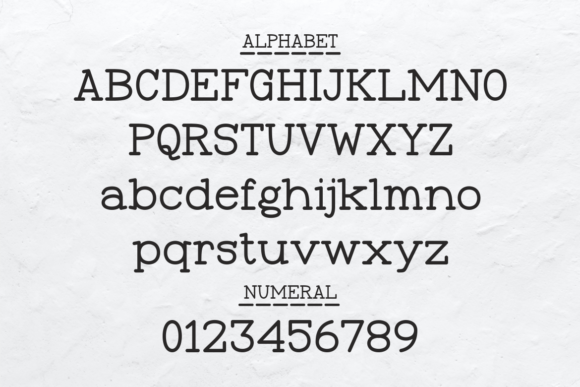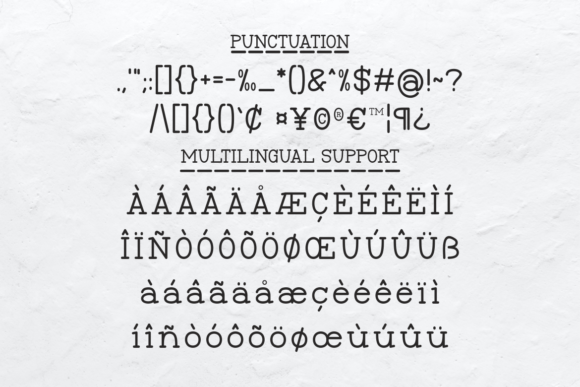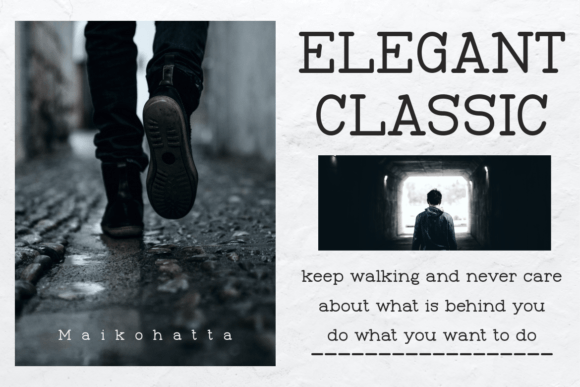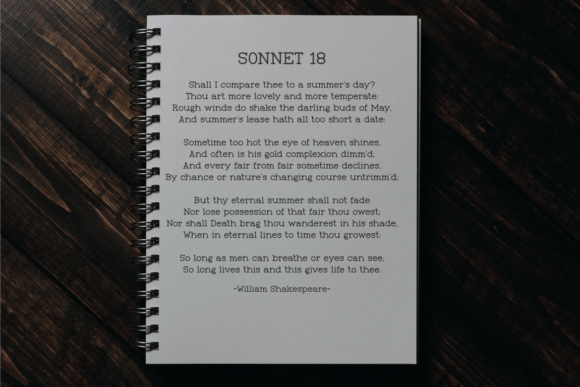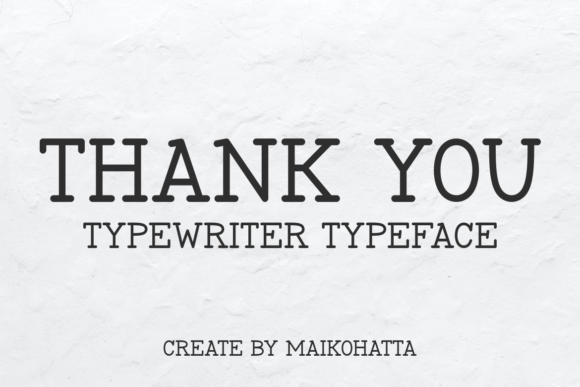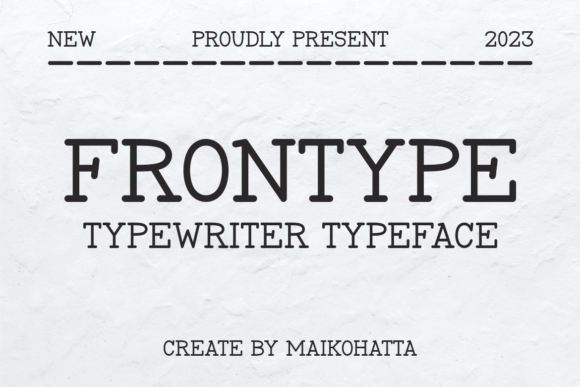
Introducing Frontype Font: A Timeless Classic for Modern Designs
In the world of typography, fonts play a crucial role in conveying the tone and aesthetic of a design. For designers and crafters looking to add a touch of nostalgia and sophistication to their work, Frontype font is an excellent choice. This unique font combines traditional serif elements with the distinctive look of a typewriter, creating a captivating visual experience that imparts a classic feel to any design it’s used in.
The Origins of Frontype Font
Frontype font draws inspiration from the traditional typewriters of the past, which were known for their mechanical aesthetic and distinctive font styles. The font’s design combines the classic serif elements, such as small lines or flourishes at the ends of the letters, with the rugged, industrial look of a typewriter. This blend of old and new creates a unique and eye-catching visual experience that sets Frontype apart from other fonts.
Key Features of Frontype Font
Frontype font boasts several key features that make it an attractive choice for designers and crafters. Some of its notable characteristics include:
- Classic Serif Elements: Frontype font features traditional serif elements, which add a touch of sophistication and elegance to any design.
- Typewriter Aesthetic: The font’s typewriter-inspired design gives it a unique, industrial look that adds a touch of nostalgia to any design.
- Retro or Vintage Impression: Frontype font is often employed to achieve a retro or vintage impression, making it perfect for designs that require a classic, timeless feel.
- Unique Appearance: The font’s distinctive look sets it apart from other fonts, making it an excellent choice for designers looking to create a lasting impression.
Uses of Frontype Font
Frontype font is a versatile font that can be used in a variety of design applications, including:
- Branding and Logo Design: Frontype font is perfect for creating logos and branding materials that require a classic, timeless feel.
- Print Design: The font is well-suited for print design applications, such as brochures, flyers, and posters.
- Digital Design: Frontype font can also be used in digital design applications, such as website design, social media graphics, and email marketing campaigns.
- Crafting and DIY Projects: The font’s unique aesthetic makes it an excellent choice for crafters and DIY enthusiasts looking to add a touch of nostalgia to their projects.
Tips for Using Frontype Font
To get the most out of Frontype font, here are a few tips to keep in mind:
- Use it Sparingly: Frontype font is a bold, attention-grabbing font that can quickly overwhelm a design if overused. Use it sparingly to create a lasting impression.
- Pair it with Other Fonts: Frontype font pairs well with other fonts, such as sans-serif fonts or script fonts. Experiment with different font combinations to create a unique visual experience.
- Adjust the Font Size and Style: Frontype font can be used in a variety of font sizes and styles, from large headings to small body text. Experiment with different font sizes and styles to create a visually appealing design.
Frontype font is a unique and captivating font that combines traditional serif elements with the aesthetics of a typewriter. Its distinctive look and classic feel make it an excellent choice for designers and crafters looking to add a touch of nostalgia and sophistication to their work. With its versatility and range of uses, Frontype font is sure to become a staple in any designer’s font library.